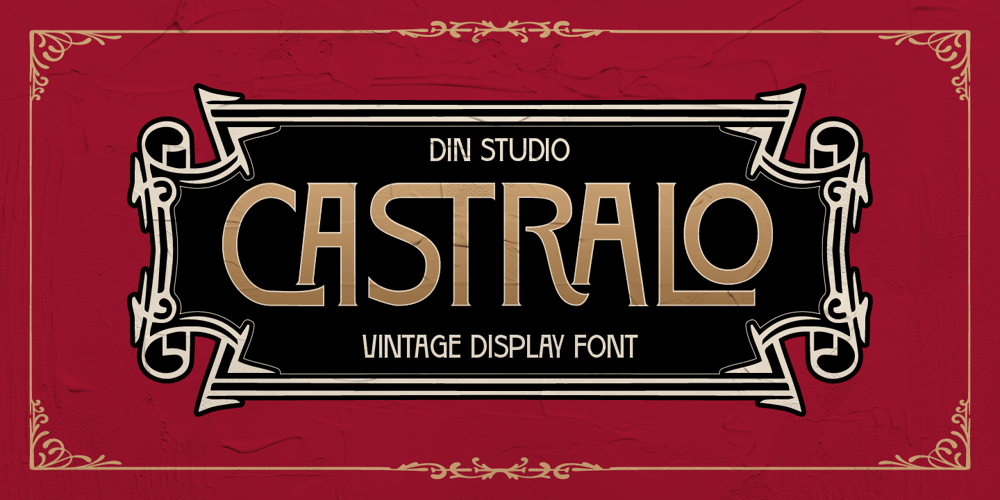
Castralo Font Family was designed by Donis Miftahudin and published by Din Studio. Castralo contains 1 styles and family package options. Introducing Castralo, a striking display font that blends vintage style with a modern edge. Crafted in all uppercase letters, Castralo shows a balanced weight that’s not too thick, making it perfect for designs that need a bold yet refined touch. The font’s sturdy and consistent sizing give it a solid and reliable feel, while maintaining excellent readability. As extra. Castralo gives ornaments. In addition, enjoy the features here.Features: Ligatures Stylistic Sets Multilingual Supports PUA Encoded Numerals and Punctuations Castralo fits in headlines, logos, posters, branding materials, packaging, print media, editorial layouts, and many more designs. Find out more ways to use this font by taking a look at the font preview.Thanks for purchasing our fonts. Hopefully, you have a great time using our font. Feel free to contact us anytime for further information or when you have trouble with the font. Thanks a lot and happy designing.